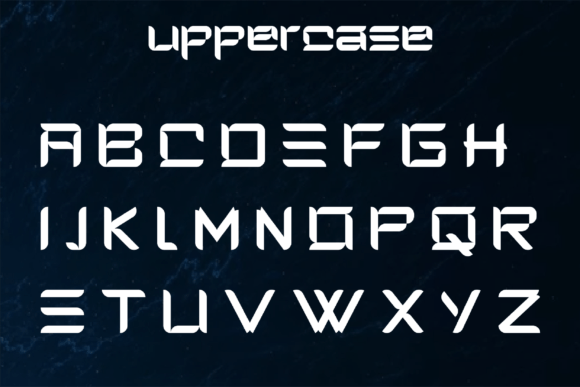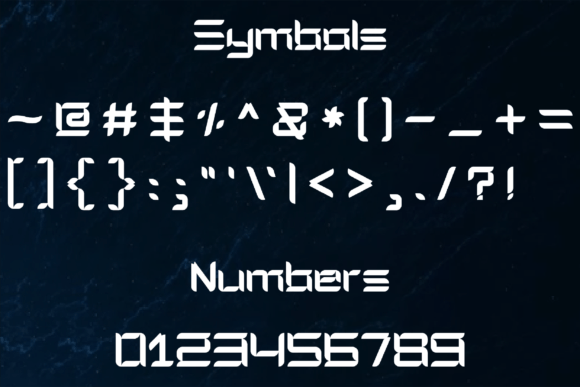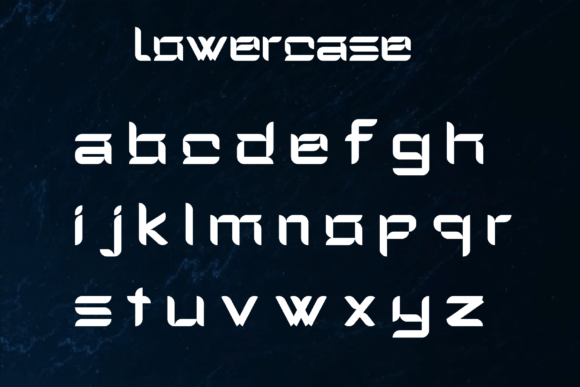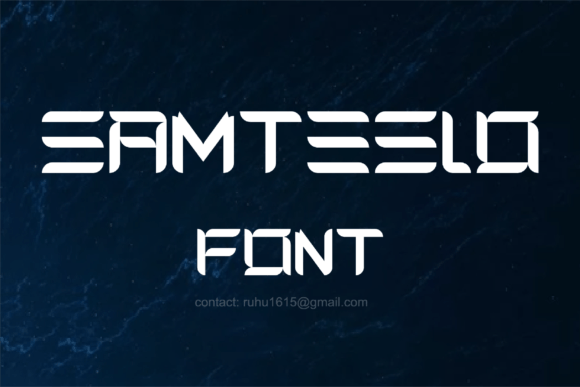
Introduction to Samteslo Font
Samteslo is a bold, industrial-grade display font exuding style and sophistication.
Perfect for eye-catching banner designs, title headings, mobile apps, logo creations, t-shirt graphics, and even car logos, it boasts a collection of 96 glyphs and 95 unique characters, making it versatile for a range of design needs .
Key Features of Samteslo Font